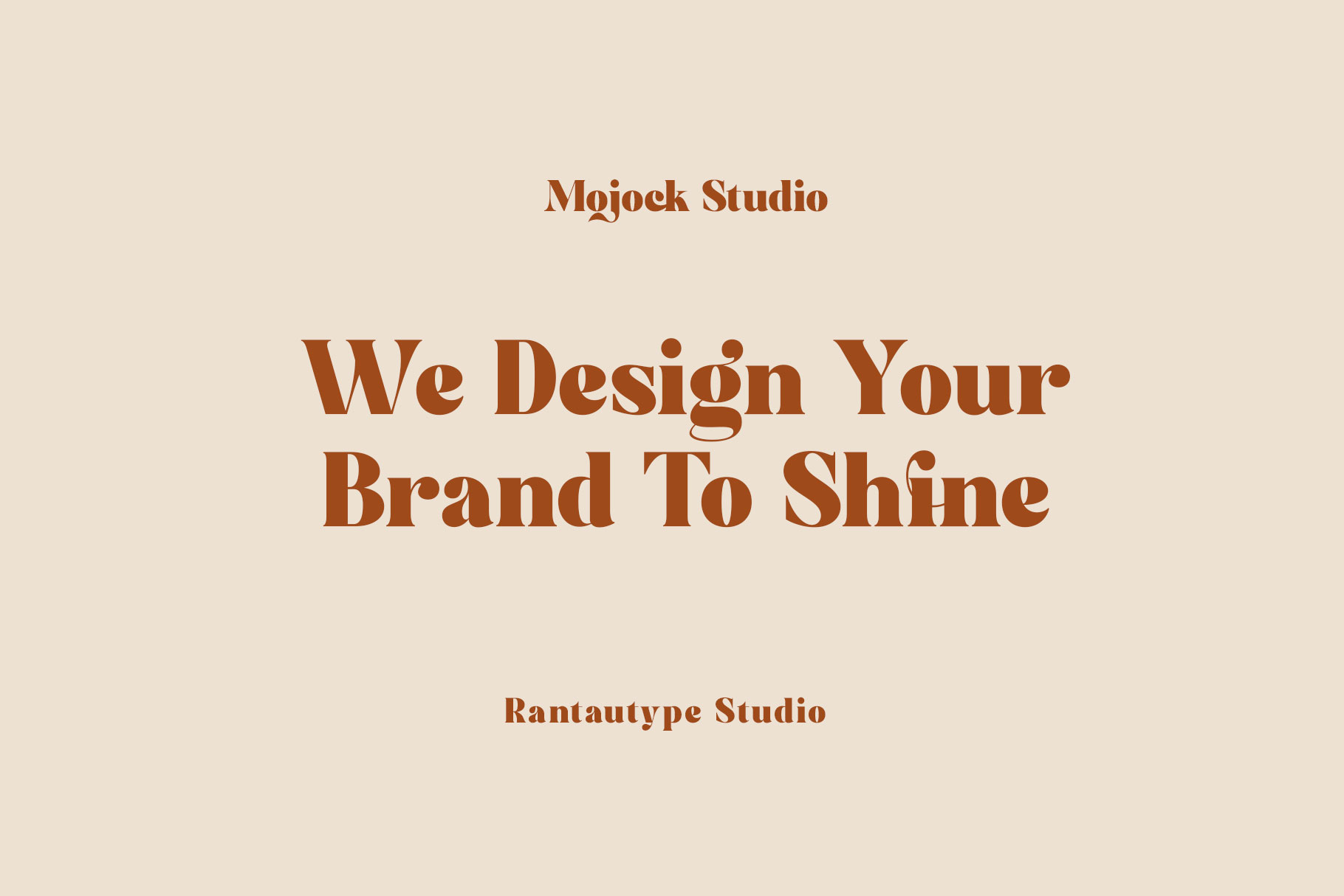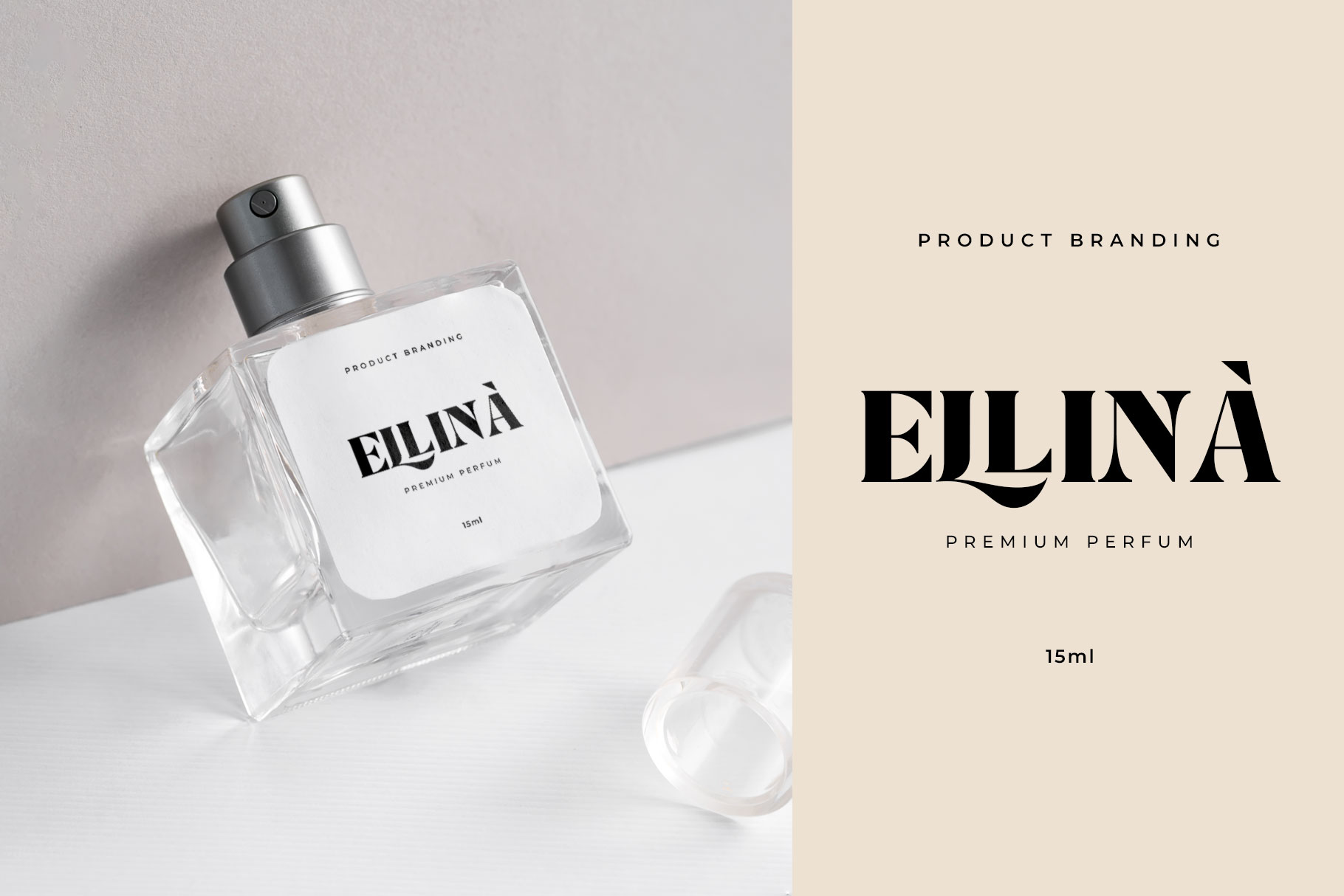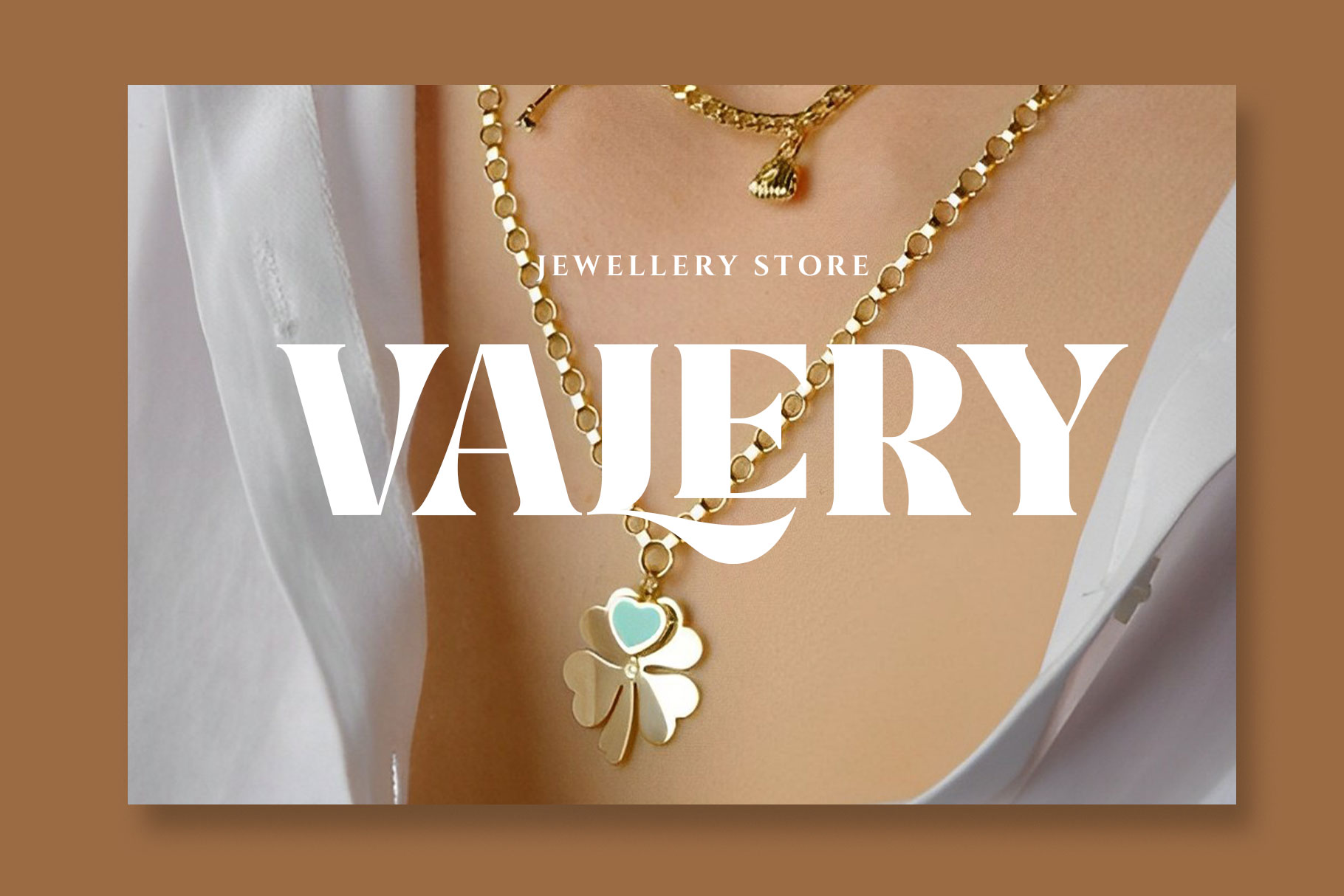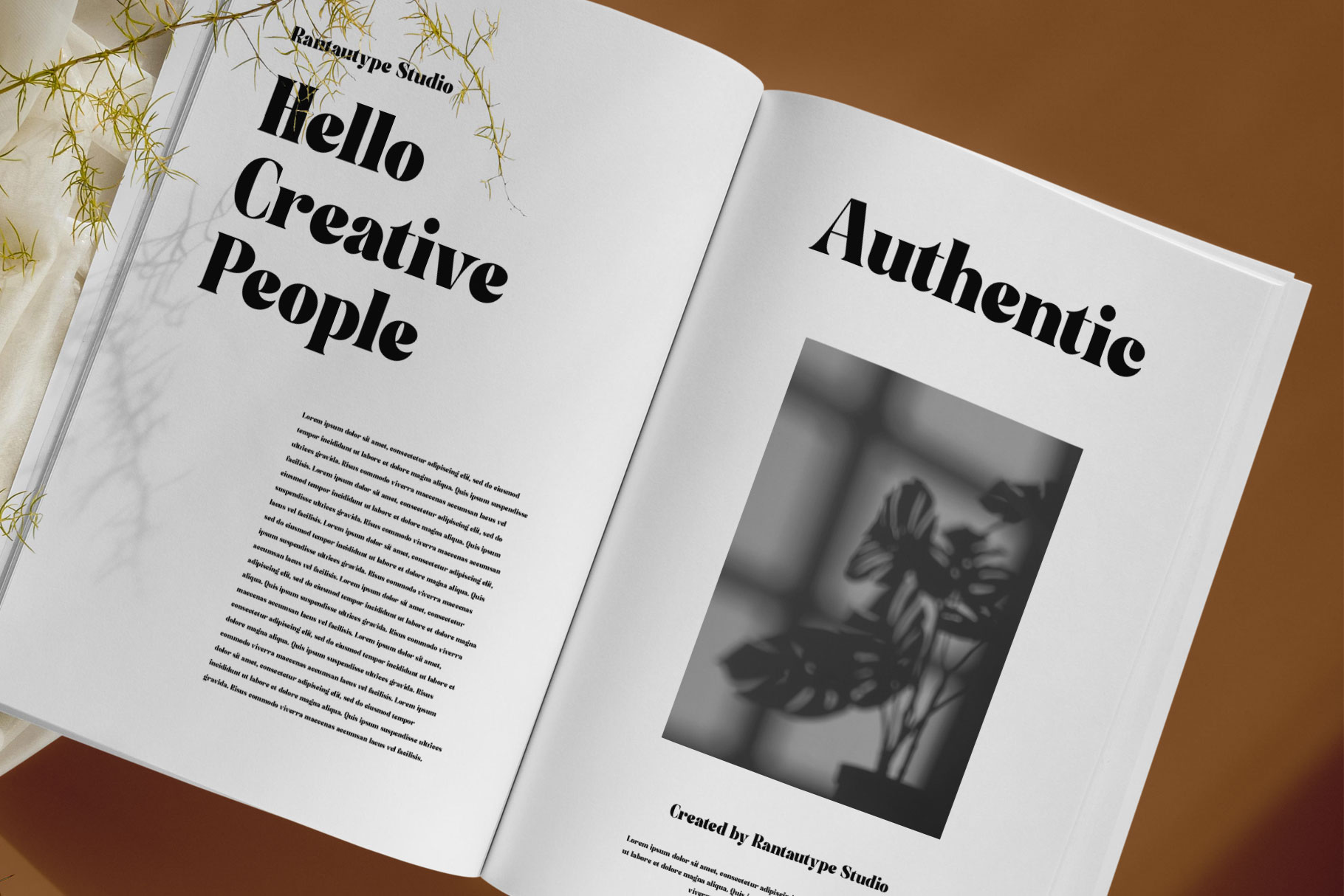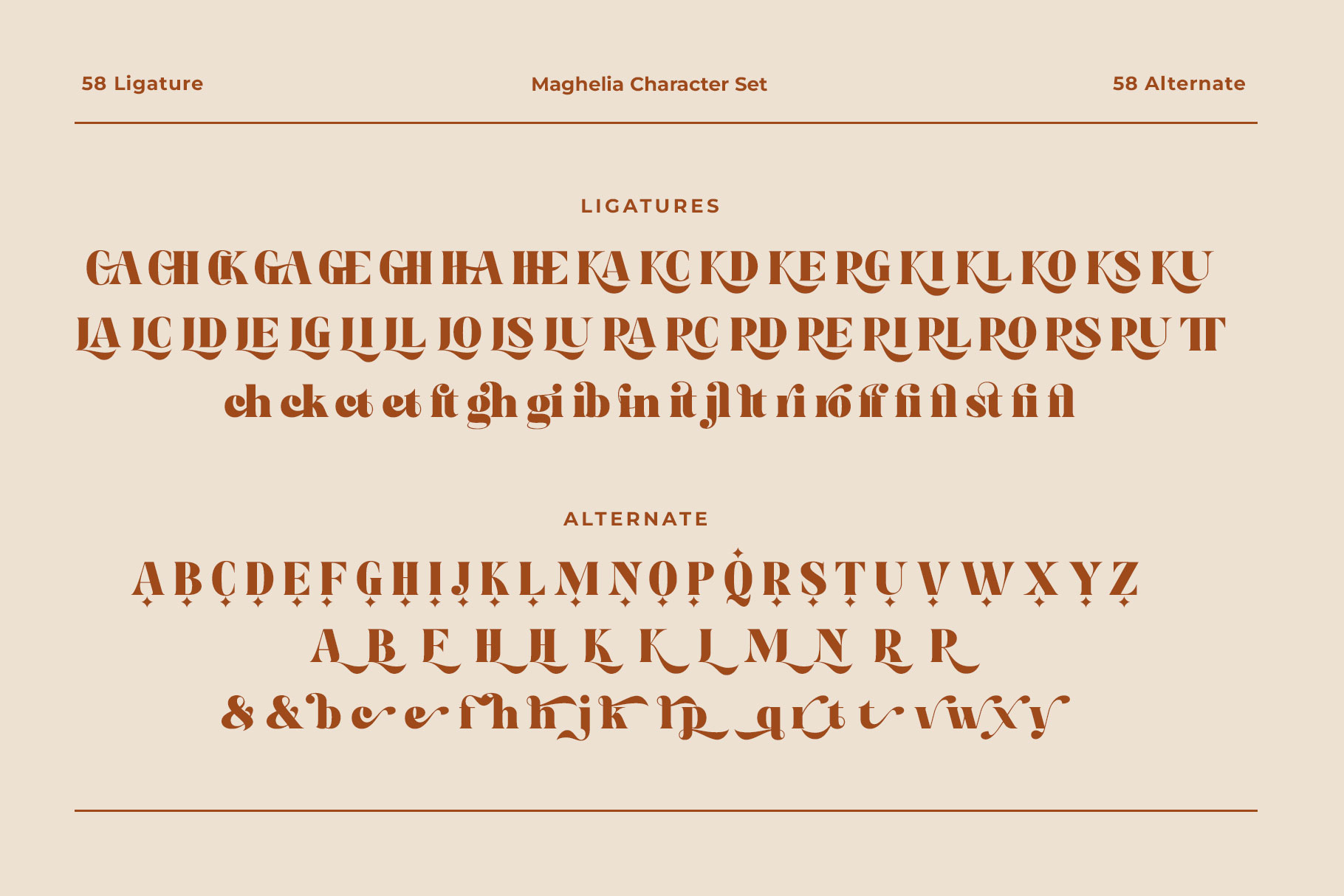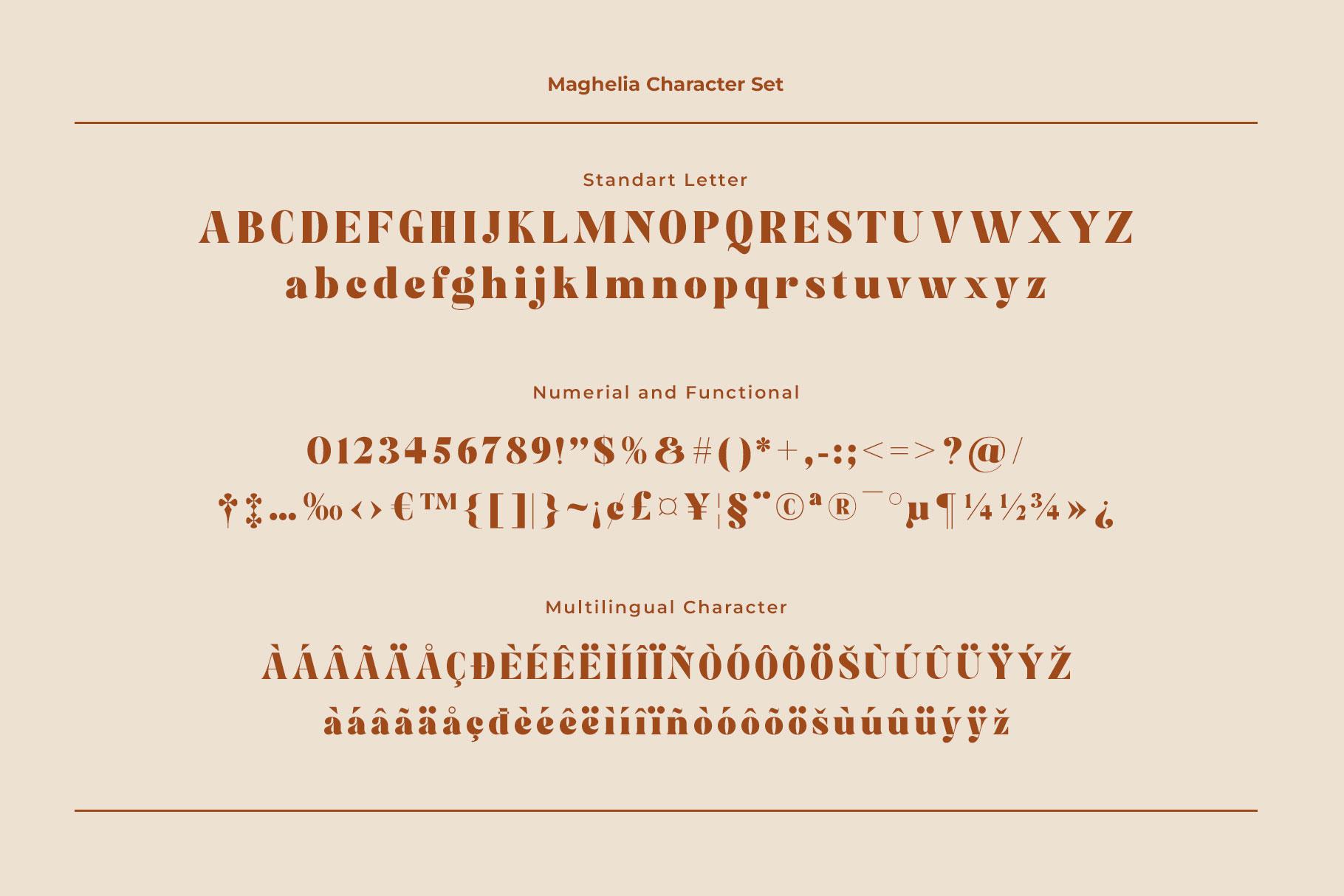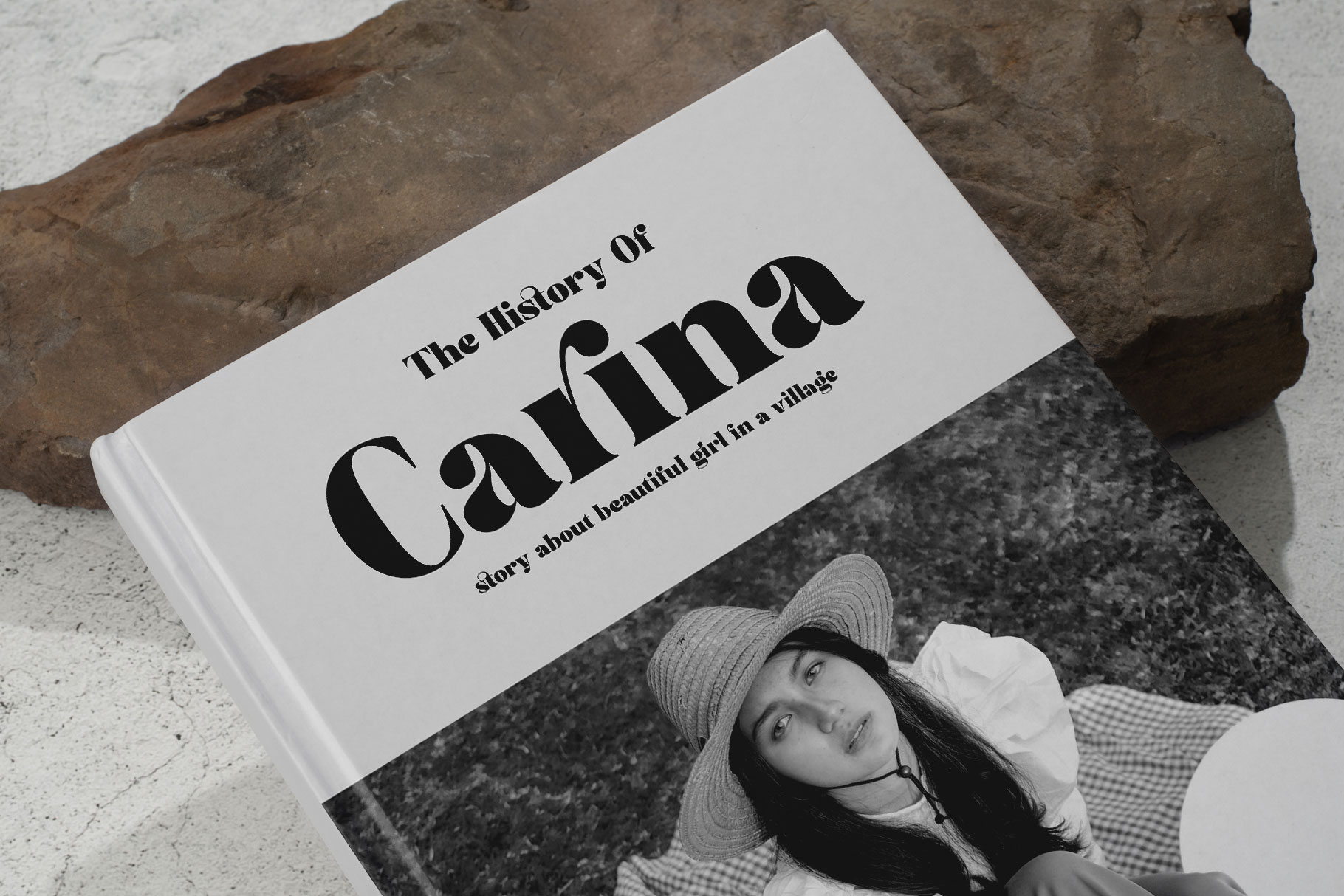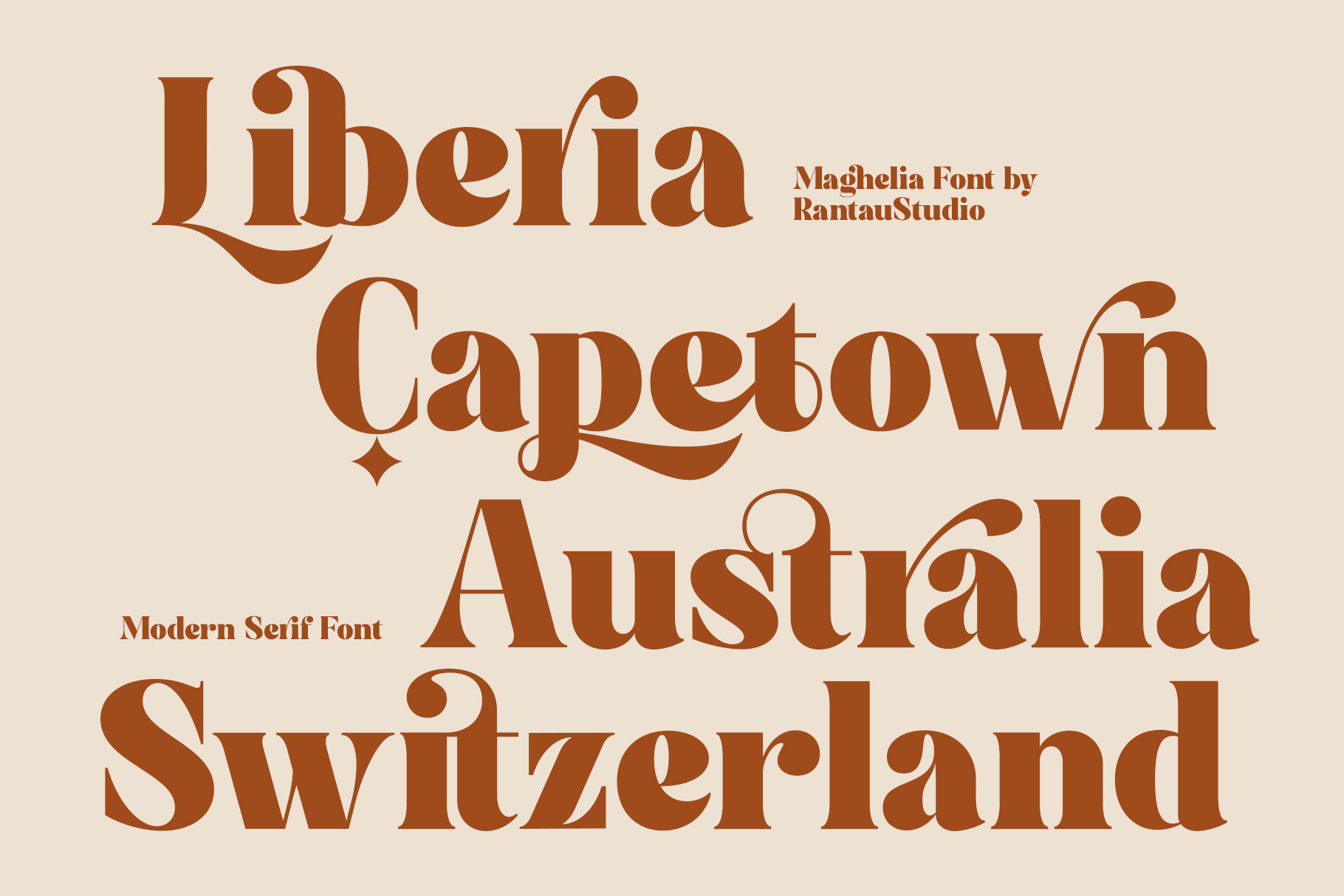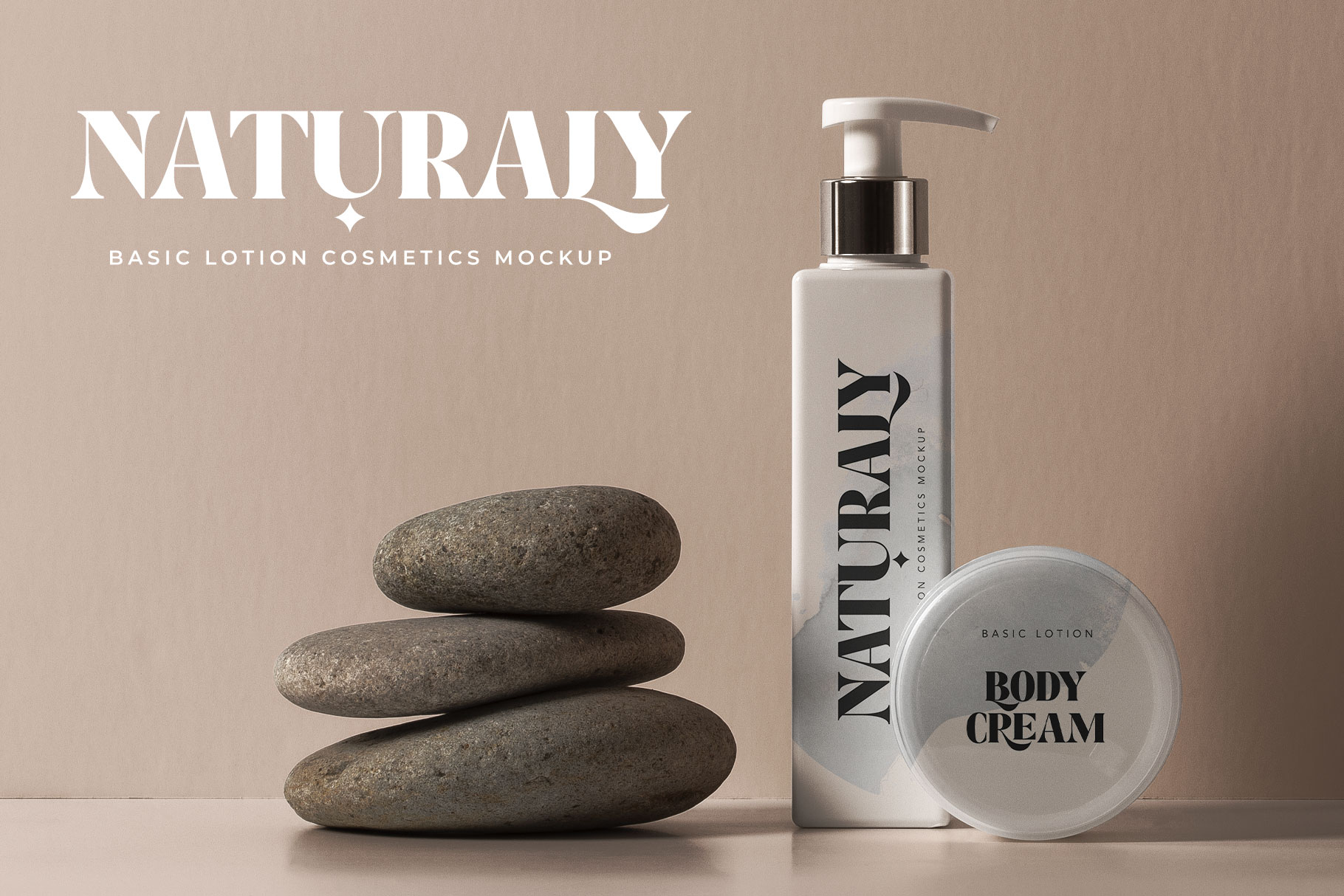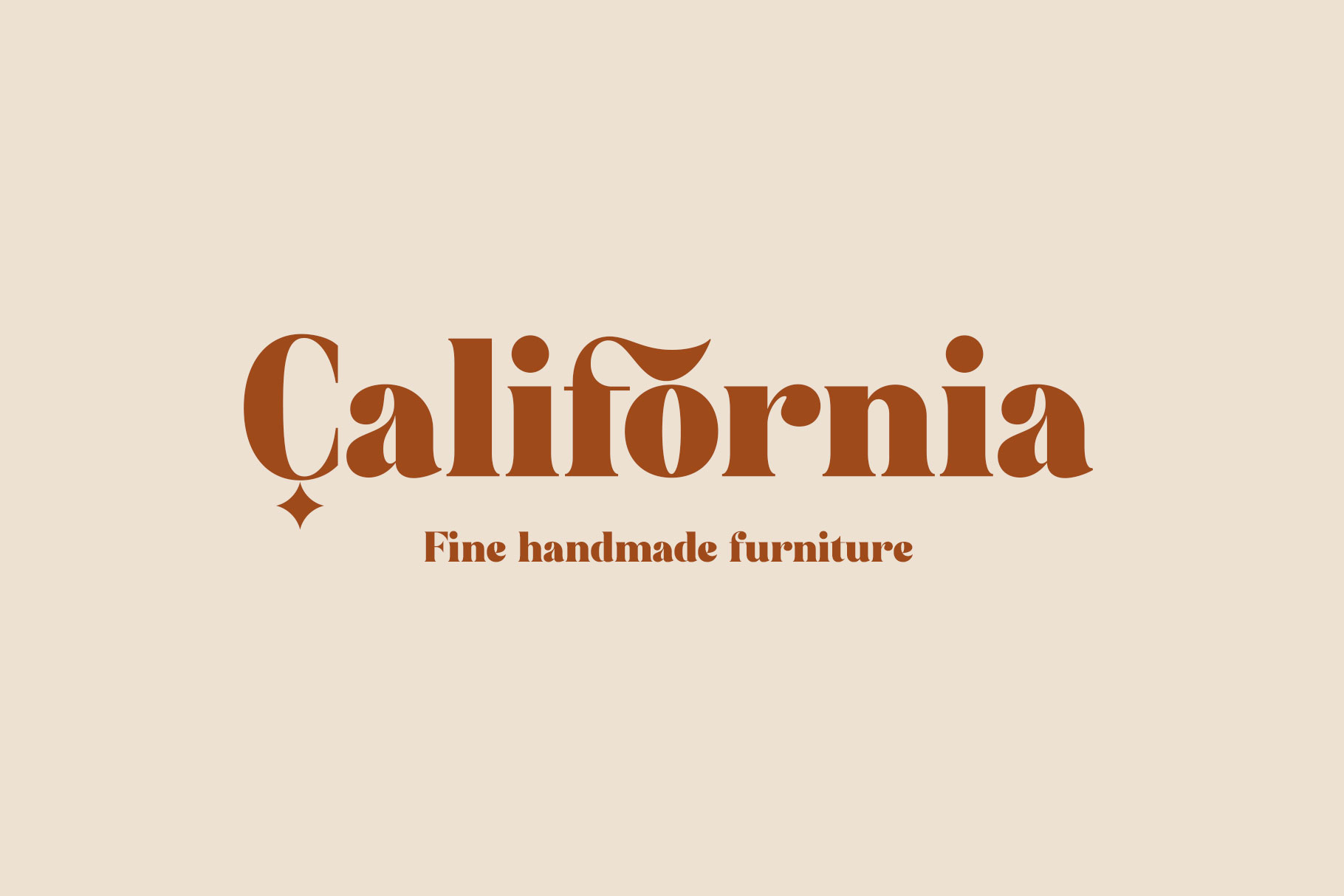
Maghelia Modern Serif Font
Maghelia isĀ  a modern serif with beautiful upper and lower character – with a complementary italic version. Maghelia come with unique ligature can make you brand or design stand out.
Maghelia is a beautiful choice for any creative endeavor, chic, lifestyle design such as logos, title, watermark on photography, cover, branding, display and magazine, wedding event, quotes, album cover, business card and many other design project.
• Standar letter A-Z and a-z